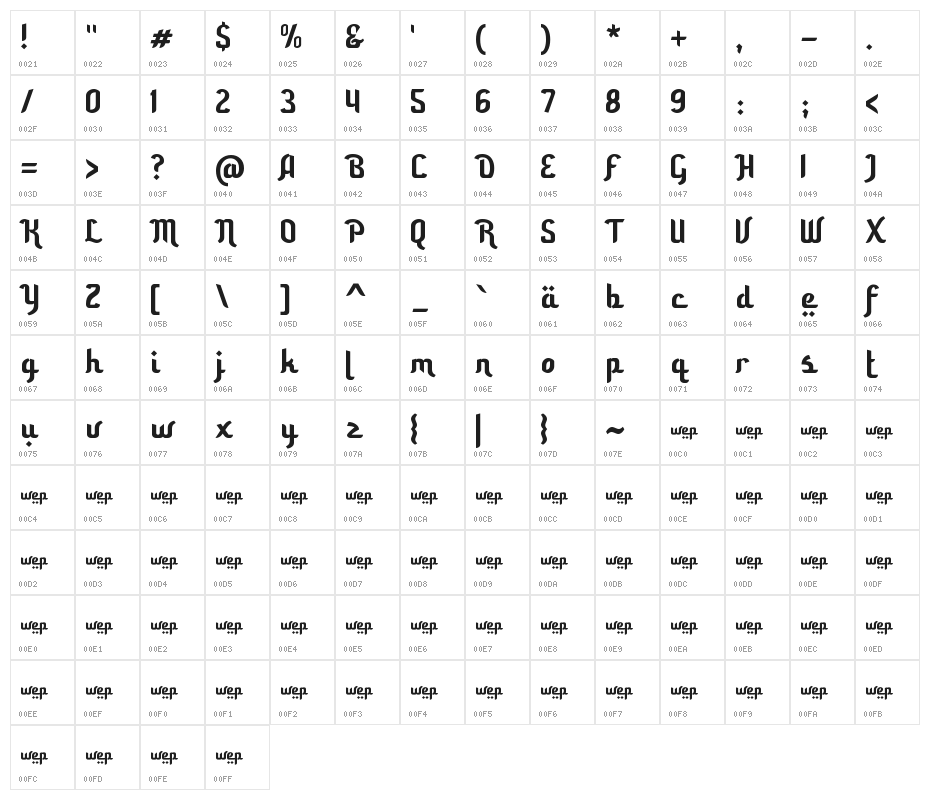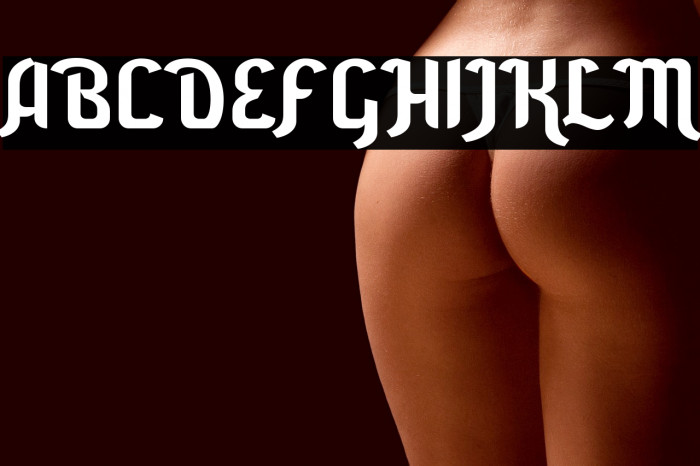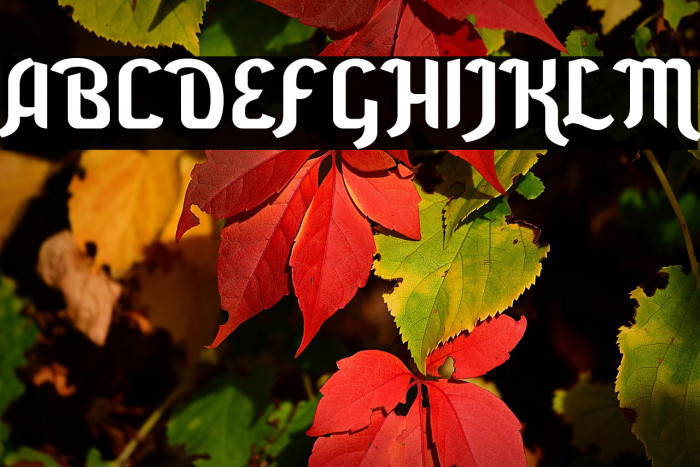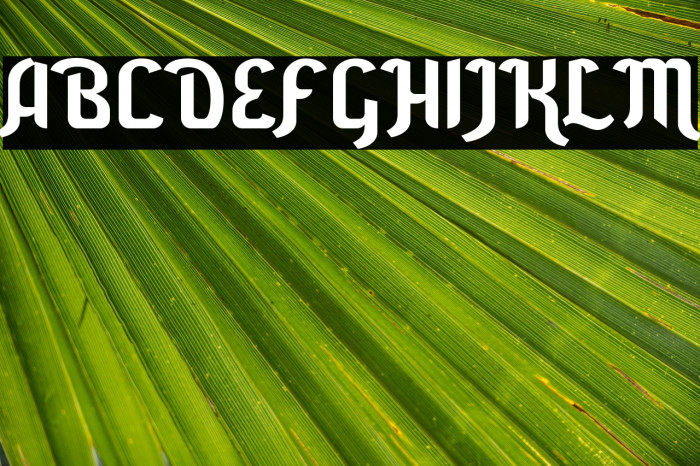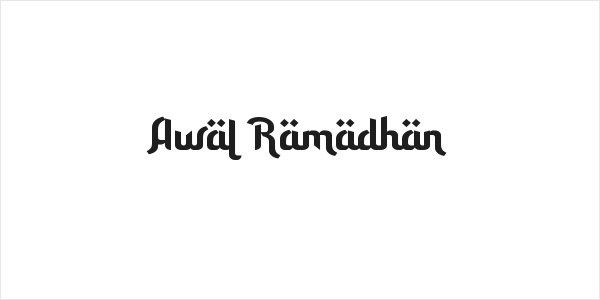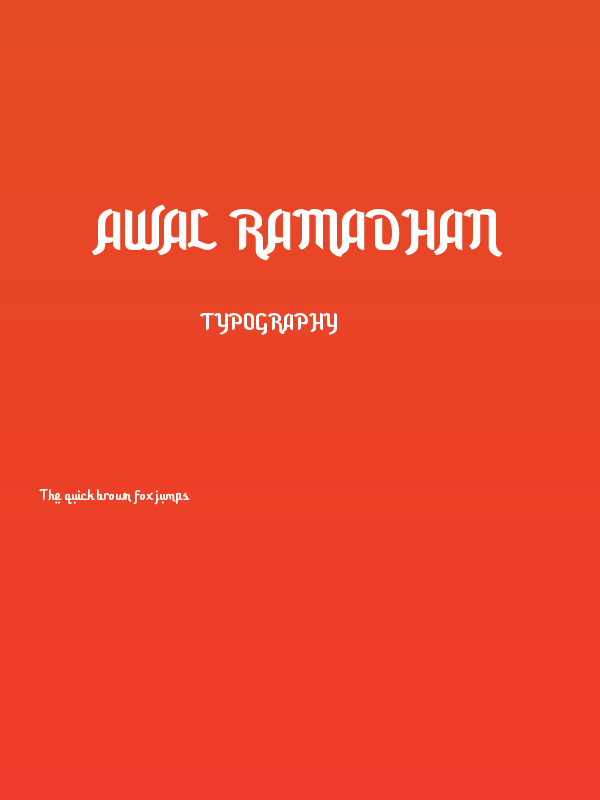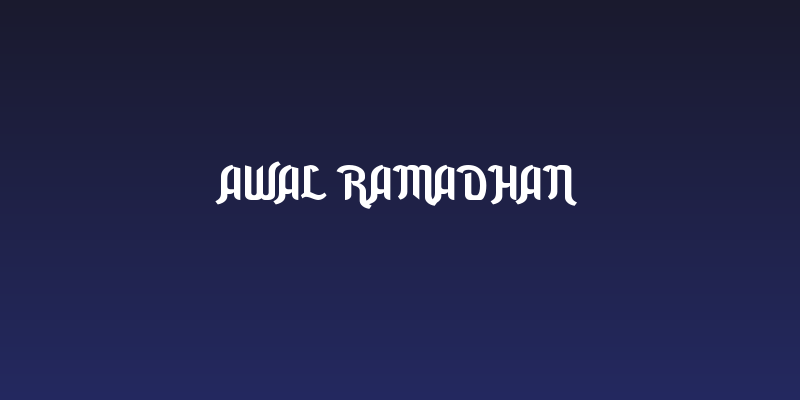
Awal Ramadhan Font
Awal Ramadhan Description
This font features a bold, decorative style with a strong presence. The characters are designed with a unique blend of sharp angles and smooth curves, giving it a modern yet slightly vintage feel. The uppercase letters are particularly striking, with a consistent height and width that create a uniform appearance. The lowercase letters maintain the same boldness, with some characters featuring distinctive flourishes that add to the overall aesthetic. Numbers are clear and easy to read, matching the style of the alphabet. Special characters are included, maintaining the same bold and decorative style. This font is ideal for projects that require a strong visual impact.
| Overall Style | Modern, Vintage |
| Proposed Projects | Ideal for branding, posters, headlines, and any design requiring a strong visual impact. |